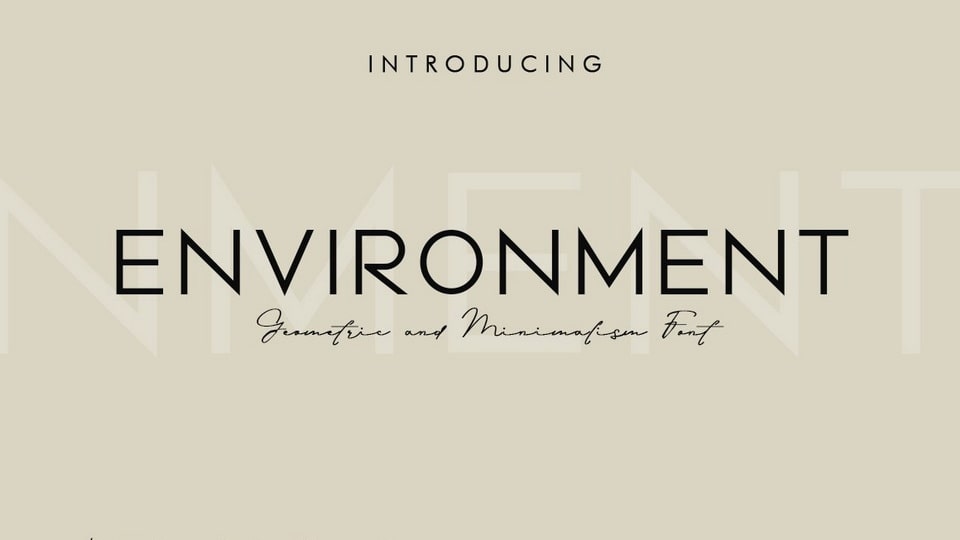
Download Environment font, a geometric, minimalist and elegant sans serif typeface. Environment font is perfectly used for product presentation, elegant logo design, packaging or invitation cards.
Designer: Wildan Type